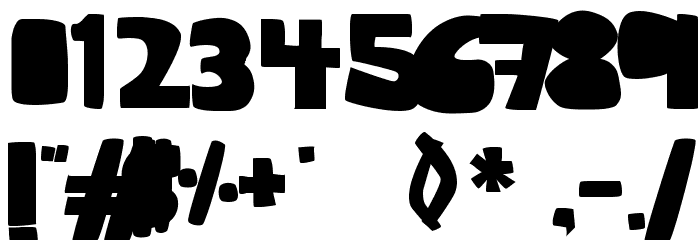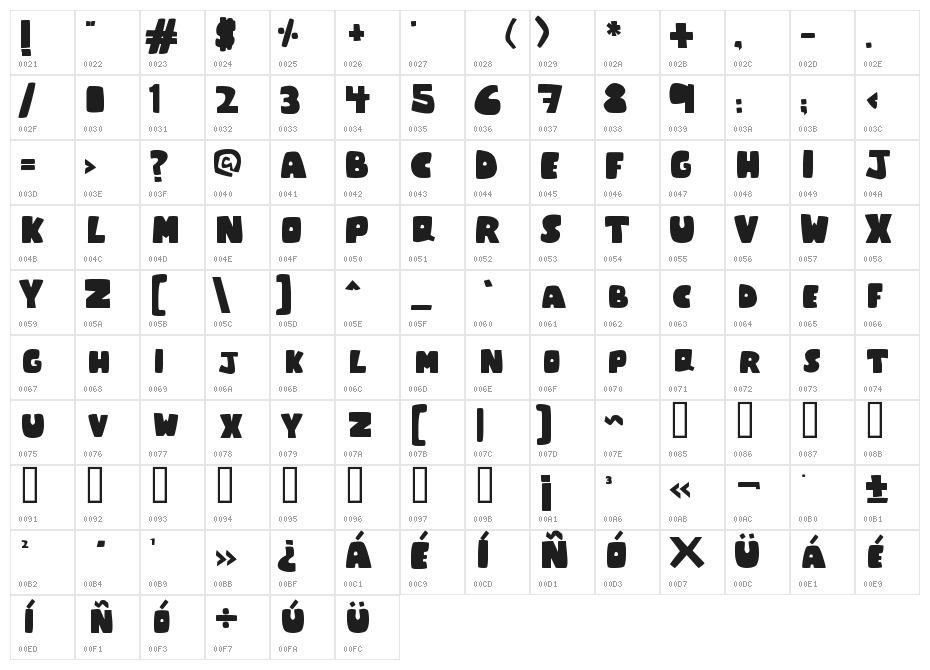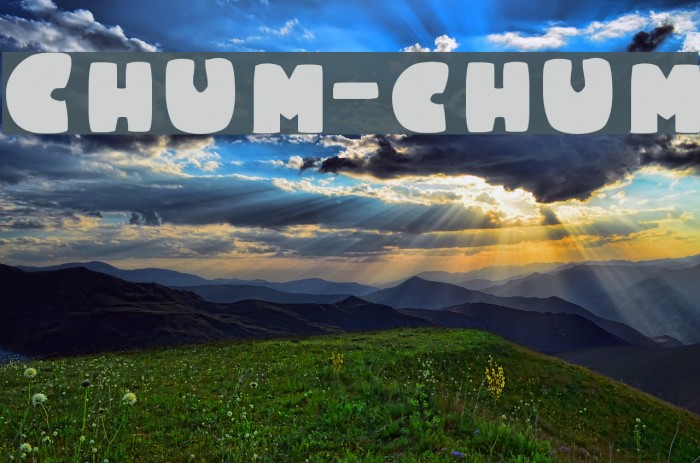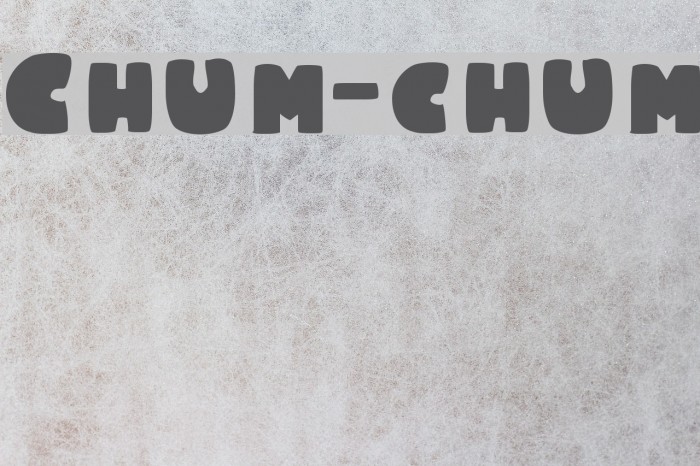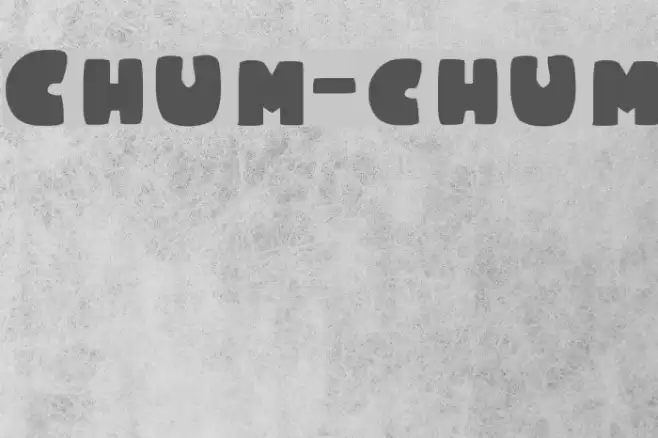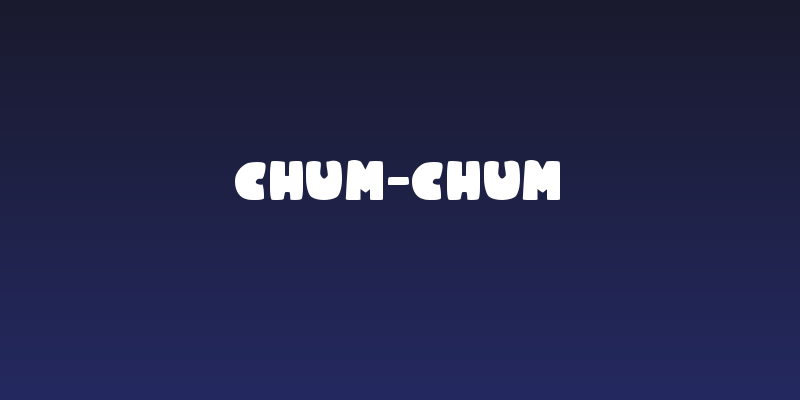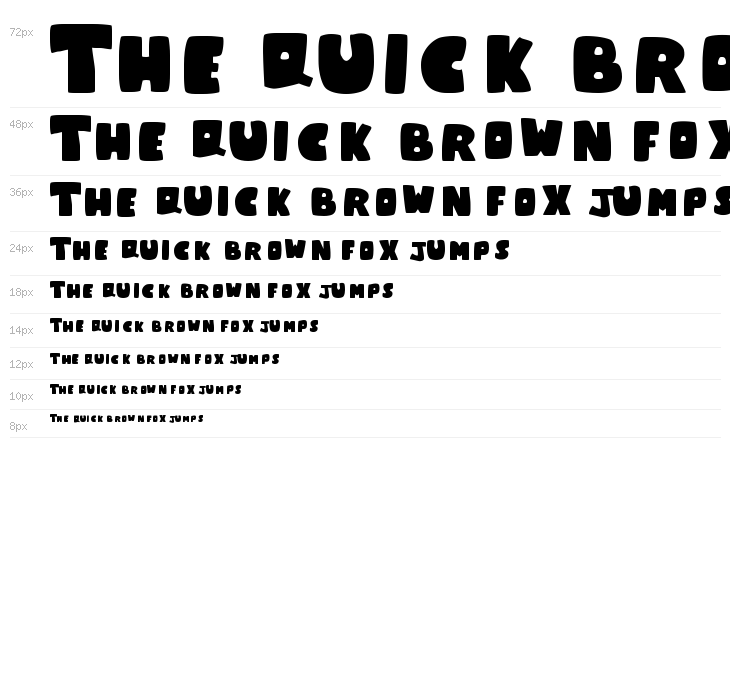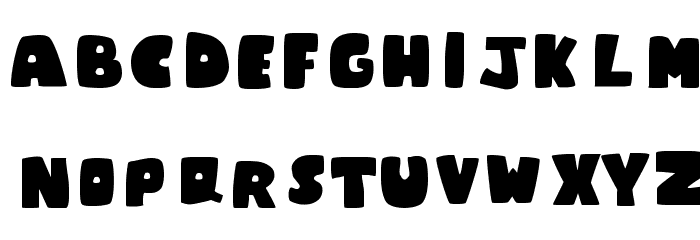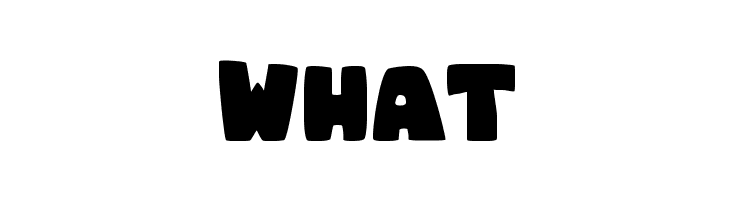
Chum-chum Font
Chum-chum Description
This font features bold, playful characters with a chunky and rounded appearance. The letters are uniformly thick, giving them a strong presence on the page. The style is reminiscent of retro or vintage designs, with a touch of whimsy that makes it suitable for fun and informal projects. The characters have a consistent width, and the spacing between them is relatively tight, enhancing the boldness of the text. The numbers and special characters maintain the same playful and bold aesthetic, ensuring a cohesive look across all elements.
| Proposed Projects | Ideal for children's books, playful branding, posters, and retro-themed designs. |